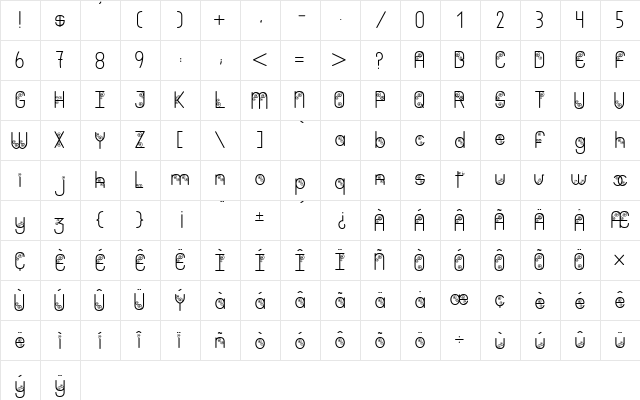
Purple shadow Regular
Design Context for Purple shadow Typeface
Purple shadow brings ornamental detail and strong personality to headlines and identities, where visual impact matters more than quiet functionality.
Font Pairing: Pair with a clean neutral sans-serif for body copy to let Purple shadow's character lead without overwhelming the composition.
Pro Tip: Treat Purple shadow as the centrepiece of your typographic hierarchy. One strong heading set in a decorative face can carry an entire layout.